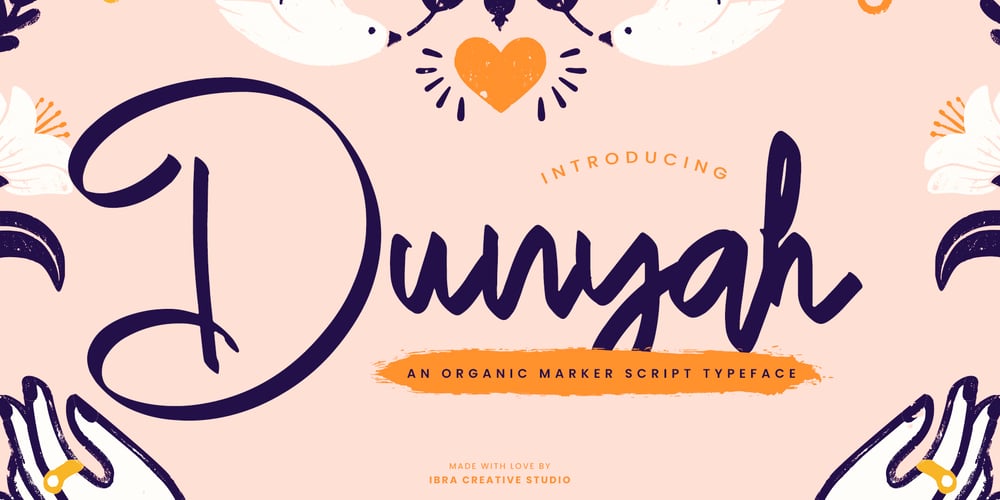
Dunyah
Dunyah font
Dunyah Font Family was designed by Roisatul Azizah and published by IbraCreative. Dunyah contains 1 styles and family package options. Dunyah – An Organic Marker Script TypefaceDunyah, an organic marker script typeface, embodies a distinctive blend of fluidity and authenticity, making it a captivating choice for a range of creative endeavors. With each stroke, Dunyah exudes a handcrafted essence, emulating the natural and dynamic flow of freehand markers. Its letters dance gracefully across the canvas, maintaining a harmonious balance between sophistication and approachability. The typeface’s organic design captures the nuanced irregularities of authentic handwriting, providing a unique and personalized touch to any project. Whether used for branding, invitations, or artistic displays, Dunyah effortlessly infuses a sense of warmth and character, creating a visually engaging experience for those who encounter its expressive, nature-inspired charm.Dunyah is perfect for branding projects, logo, wedding designs, social media posts, advertisements, product packaging, product designs, label, photography, watermark, invitation, stationery, game, fashion and any projects.Fonts include multilingual support for; Afrikaans, Albanian, Czech, Danish, Dutch, English, Estonian, Finnish, French, German, Hungarian, Italian, Latvian, Lithuanian, Norwegian, Polish, Portuguese, Slovak, Slovenian, Spanish, Swedish.